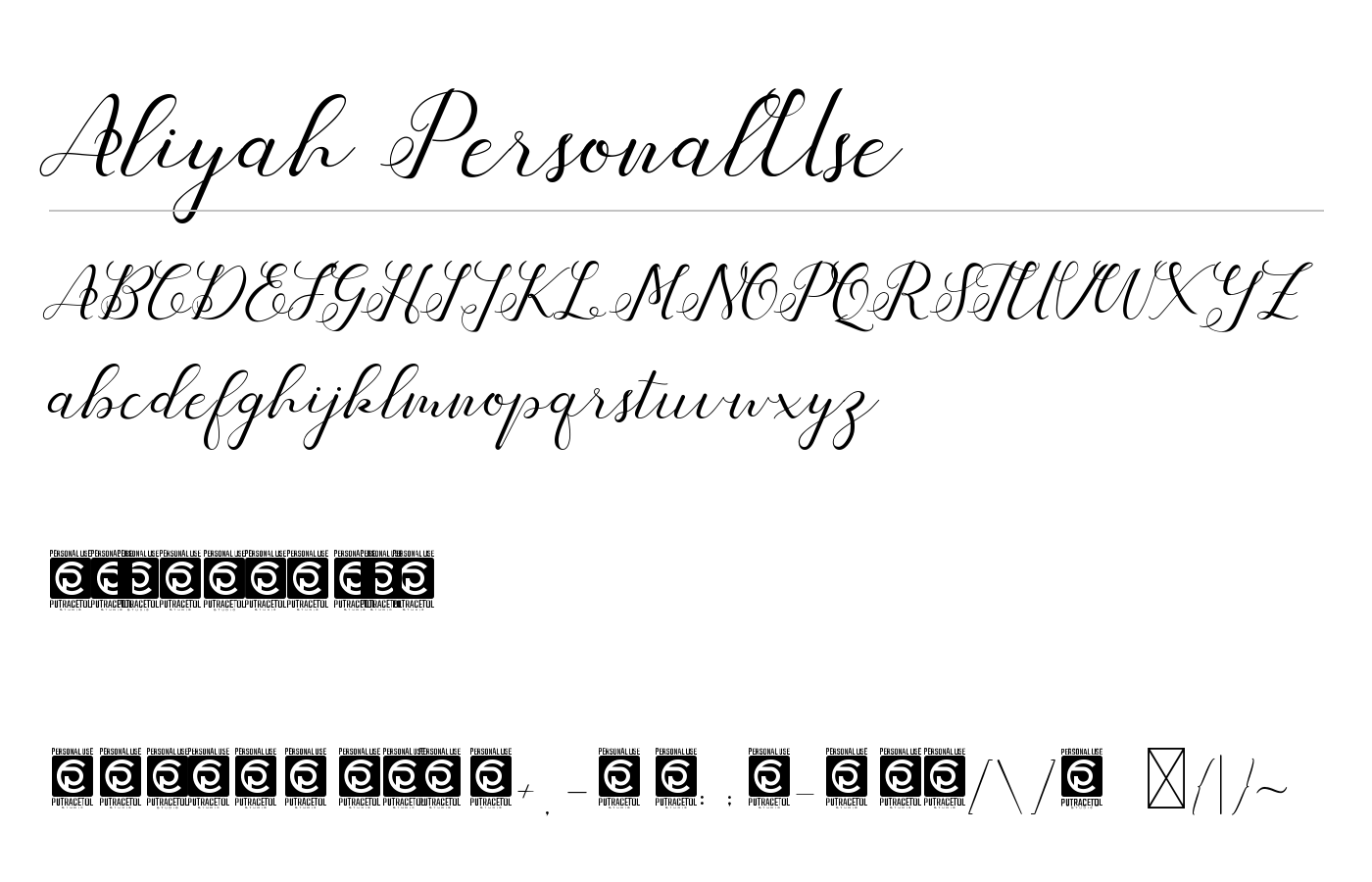
Aliyah is a delicate and elegant script font characterized by its flowing, graceful strokes and fine lines, evoking a sophisticated, handwritten feel. It features high contrast with slender letterforms and decorative swashes, making it ideal for luxurious branding, invitations, and stylish headlines where a touch of classic femininity and charm is desired.
Aliyah Font